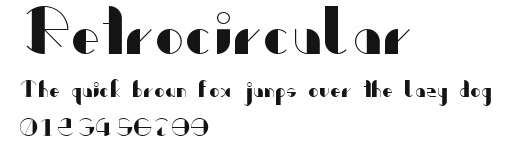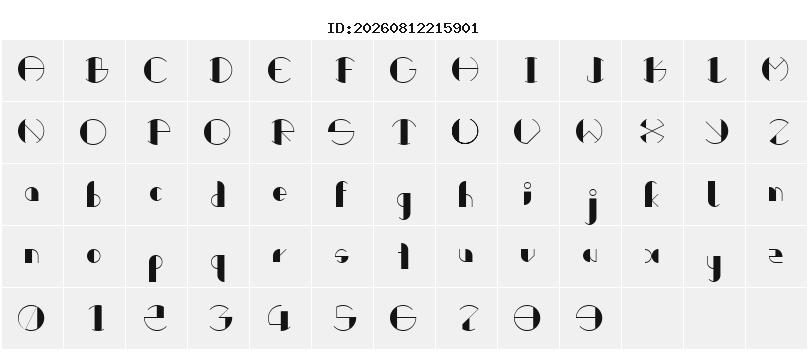
About Retrocircular .ttf
Retrocircular .ttf is a modern, elegant sans-serif font designed for ultimate readability and visual harmony. Perfect for branding, headlines, web design, and print materials.